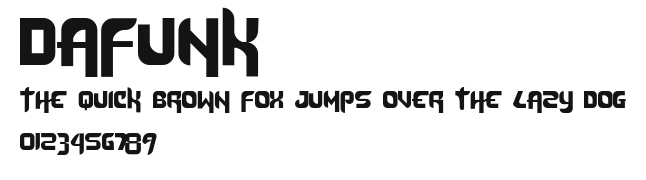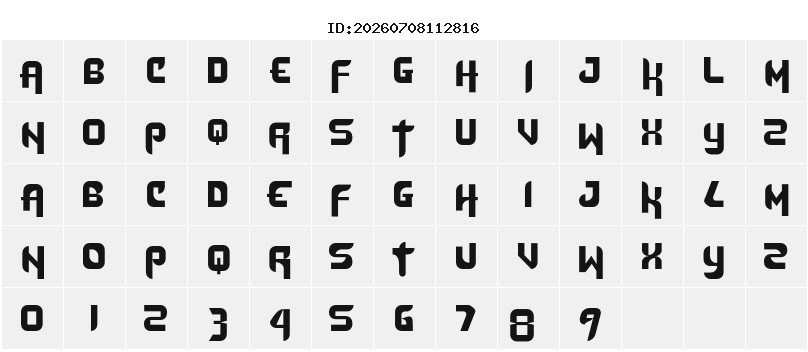
• Font Name: Dafunk
• Designer: Matt Napolitano, Highground Industries
• Manufacturer: Matt Napolitano , Highground Industries
About Dafunk.otf
Dafunk.otf is a modern, elegant sans-serif font designed for ultimate readability and visual harmony. Perfect for branding, headlines, web design, and print materials.